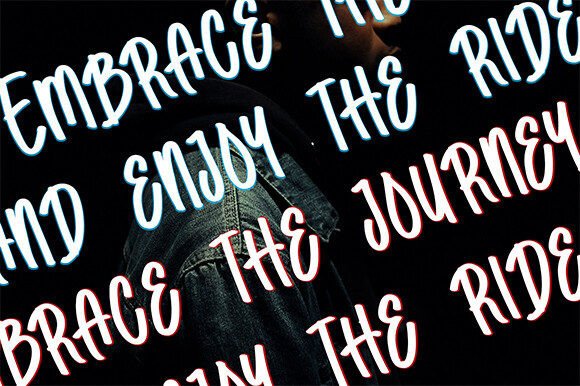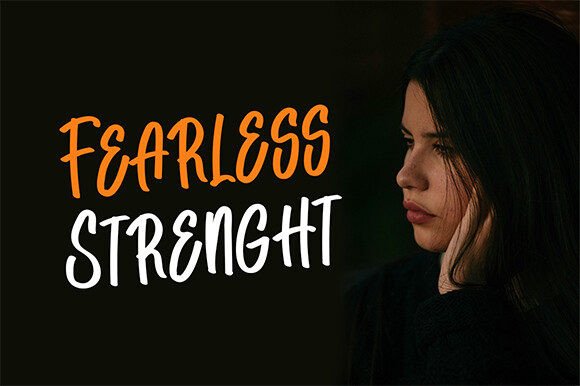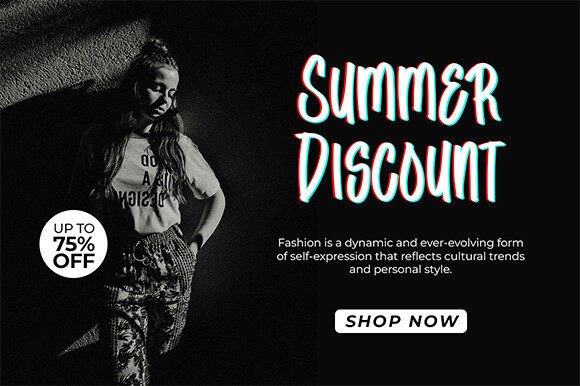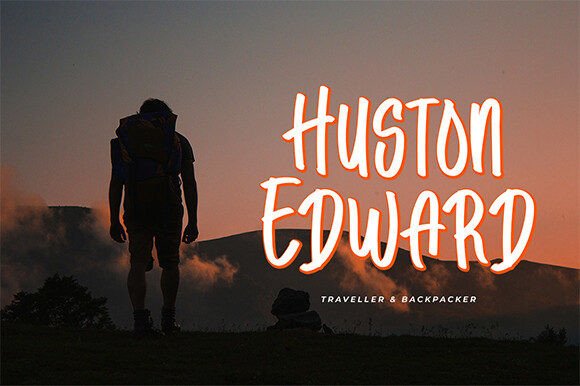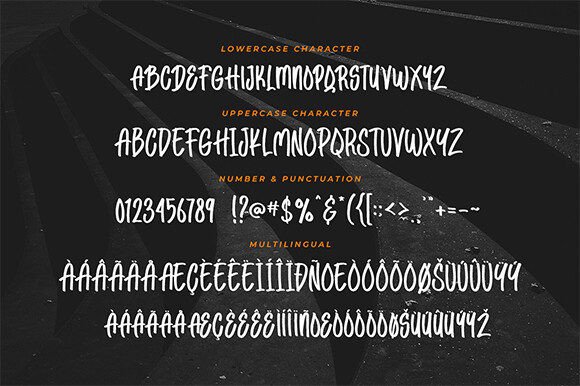
The Urban Edge: Discovering Fushion Impact Font
I’ll never forget the design project that led me to Fushion Impact Font. I was working on a branding campaign for a trendy skate shop, and I needed a font that captured the raw energy of urban street art. After hours of searching, I stumbled upon Fushion Impact, and it was love at first sight. Its bold, edgy design perfectly embodied the rebellious spirit of the skate culture. In this article, I’ll share my experience with Fushion Impact, its features, and how to make the most of this dynamic font.
- ✨ Dynamic and modern design: Fushion Impact’s graffiti-inspired style is perfect for projects that demand a striking aesthetic.
- ✅ Bold and edgy: This font is not for the faint of heart. It’s perfect for making a statement.
- 💥 Highly versatile: Fushion Impact works well for titles, headings, and even short paragraphs.
While Fushion Impact is an amazing font, it’s not without its quirks. Here are a few things to keep in mind:
- 🤔 Legibility at small sizes: Fushion Impact can be a bit tricky to read at small sizes. It’s best used for headlines or titles.
- ⚠️ Limited use in body text: Due to its bold design, Fushion Impact might not be the best choice for lengthy body text.
Fushion Impact was inspired by the urban street art scene. Its designer, a fan of graffiti and modern art, aimed to capture the raw energy and rebellious spirit of the streets. The result is a font that’s both bold and beautiful.
Q: Is Fushion Impact suitable for body text?
A: While Fushion Impact is an amazing font, it’s best used for titles and headings. Its bold design might make lengthy body text difficult to read.
Q: Does Fushion Impact support OpenType features?
A: Yes, Fushion Impact supports OpenType features like ligatures and stylistic alternates. Experiment with these features to add more flair to your text.